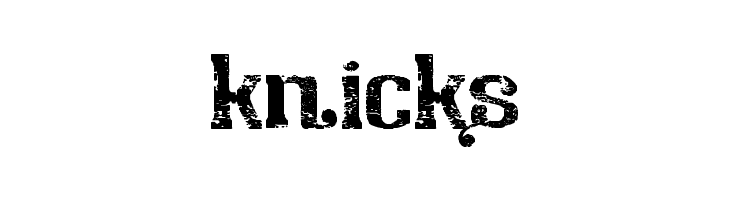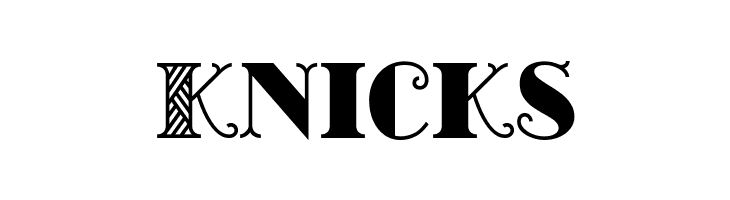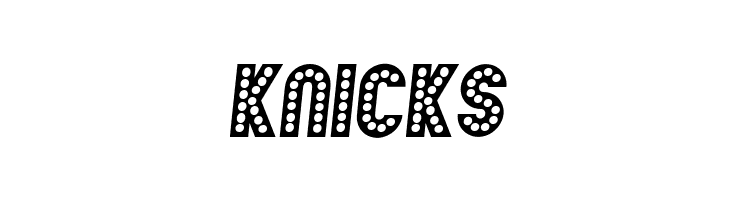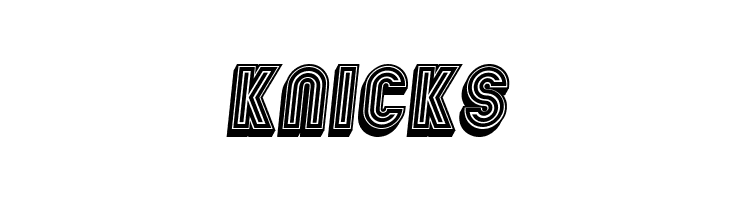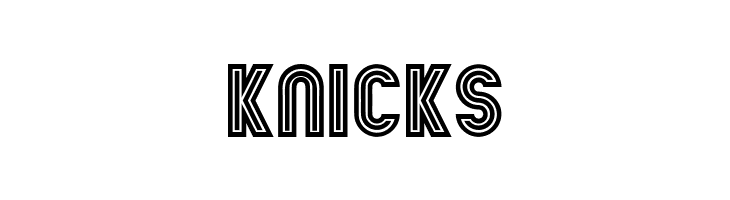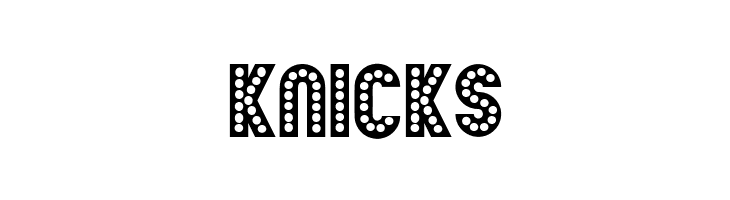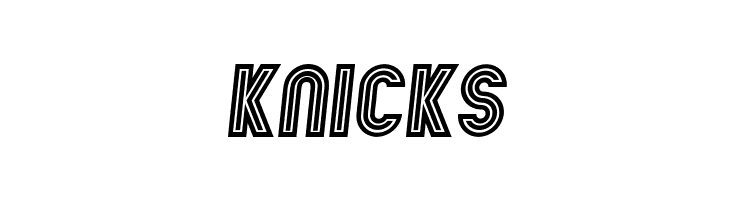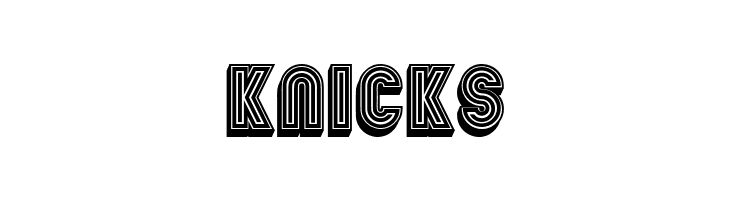
A bold, distressed font with ornate, vintage embellishments.
A bold, decorative font with a dotted pattern, reminiscent of marquee lights.
A bold, decorative font with intricate patterns and a vintage flair.
A decorative and bold font with intricate patterns and high contrast.
A bold, 3D neon-style italic font with a dynamic and modern look.
A bold, 3D neon-style font with layered outlines and rounded edges.
A bold, italicized font with a neon outline effect, perfect for retro designs.
A bold, geometric font with a neon-like outline, perfect for retro and modern designs.
A bold, decorative font with a dotted pattern for a playful, high-contrast look.